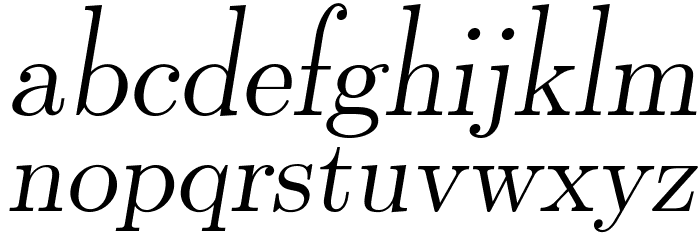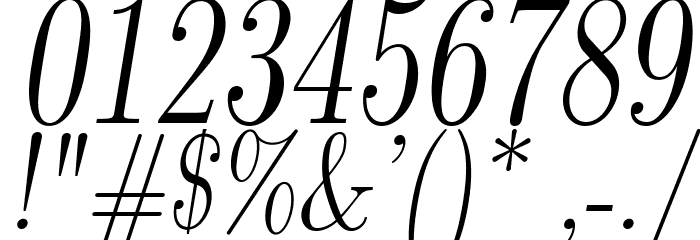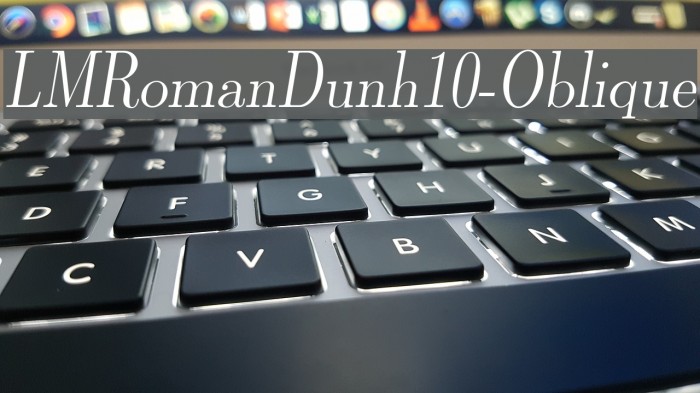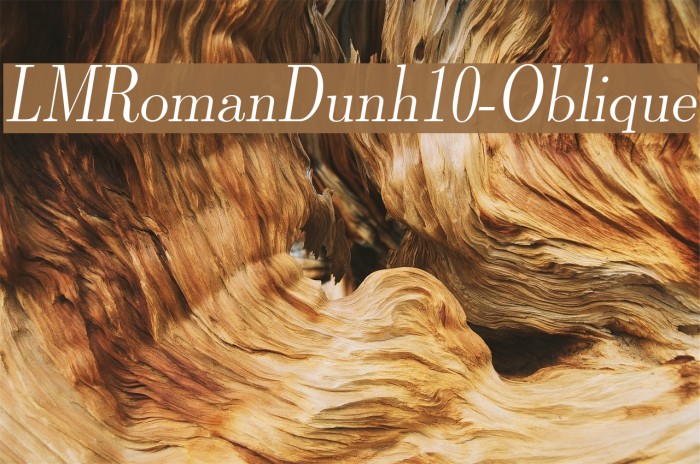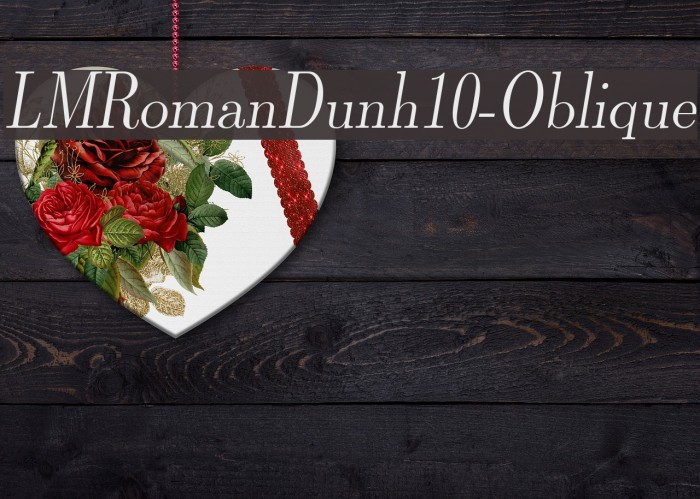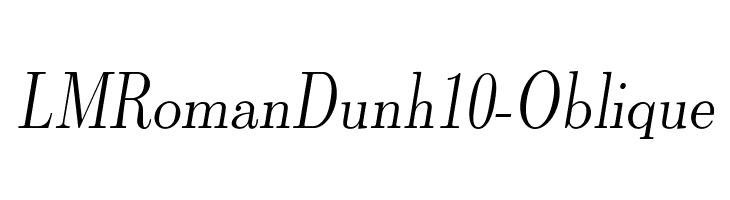
LMRomanDunh10-Oblique Font
This font exhibits a classic and elegant style with a distinct oblique slant, giving it a refined and sophisticated appearance. The serifs are pronounced yet delicate, adding a touch of formality and tradition. The characters are well-proportioned, with a moderate contrast between thick and thin strokes, enhancing readability while maintaining an aesthetic appeal. The numerals are consistent with the alphabetic characters, ensuring uniformity across different text elements. Special characters are crafted with the same attention to detail, making this font versatile for various applications.
A classic oblique serif font with elegant proportions and moderate contrast.
- Proposed Projects: Ideal for formal invitations, editorial design, book covers, and branding materials that require a touch of elegance.
- Overall Style: Classic